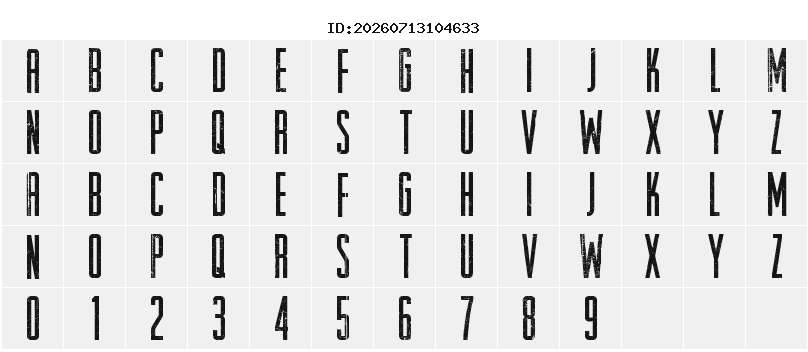
• Font Name: Raleigh Rock
• Designer: Imagex
About Raleigh Rock.ttf
Raleigh Rock.ttf is a modern, elegant sans-serif font designed for ultimate readability and visual harmony. Perfect for branding, headlines, web design, and print materials.